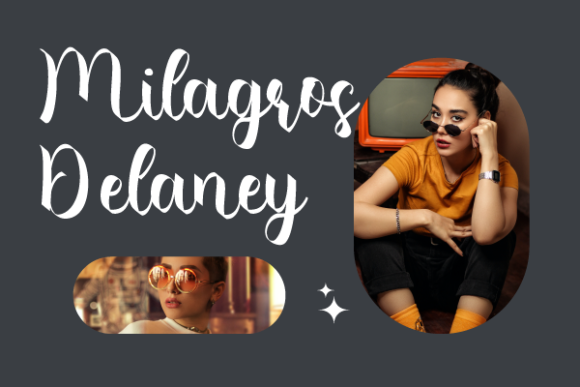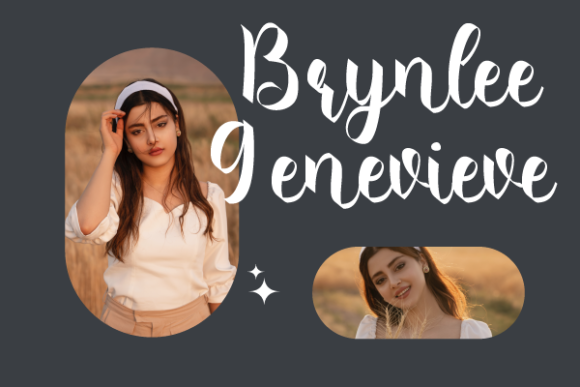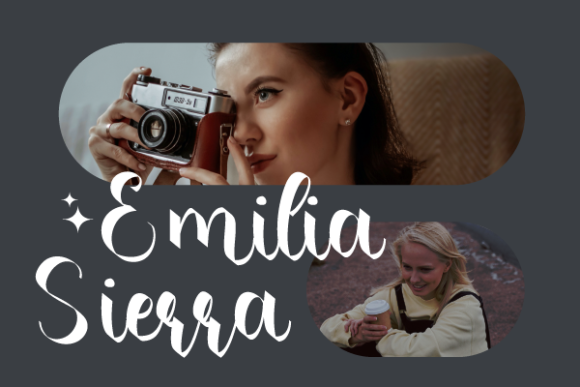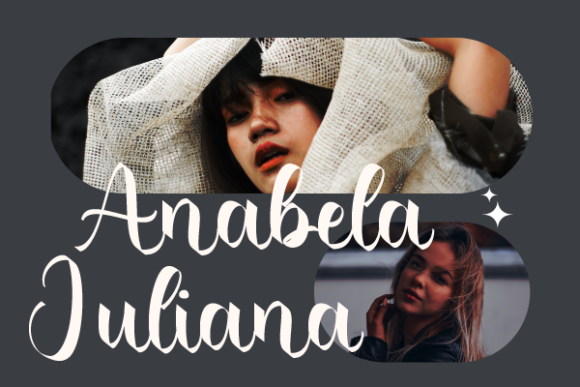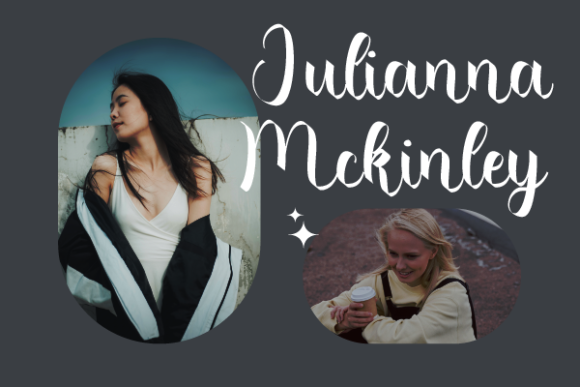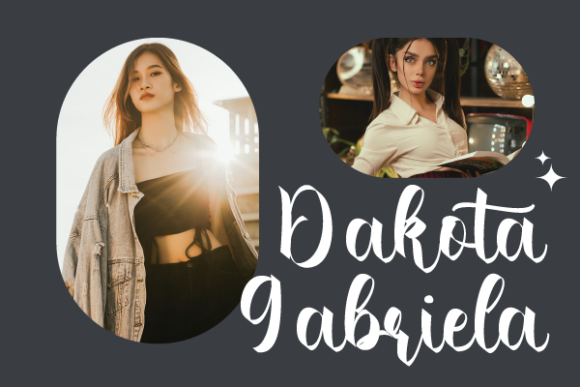
Aydin Demetrius Font: Elevate Your Creativity with Elegance
In the world of typography, few fonts manage to capture the essence of elegance and creativity as effectively as the Aydin Demetrius font. This magical script font, carefully crafted with a touch of sophistication, has become a go-to choice for designers and crafters looking to infuse their projects with a dash of artistry. Whether you’re curating a visually stunning Instagram feed or working on a DIY project that demands a personal touch, Aydin Demetrius is poised to transform your creative ideas into true masterpieces.
The Allure of Aydin Demetrius
Aydin Demetrius is more than just a font; it’s an experience. Its unique blend of classic script elements and modern flair makes it versatile and captivating. The font’s design is characterized by its fluid strokes, graceful ligatures, and a charming aesthetic that lends itself beautifully to a variety of applications. From the intricate details of calligraphy to the bold statements of digital content, Aydin Demetrius brings a level of sophistication that’s hard to match.
Applications of Aydin Demetrius
Instagram and Social Media
In the visually driven world of Instagram and social media, standing out is key. Aydin Demetrius offers a distinctive style that can elevate your posts, stories, and bio to new heights. Its elegant appearance makes it perfect for quotes, captions, and even creating custom graphics that demand attention and convey a sense of luxury.
DIY Projects and Crafting
For crafters and DIY enthusiasts, Aydin Demetrius opens up a world of creative possibilities. Whether you’re designing handmade cards, crafting custom signage, or working on a quilt with personalized lettering, this font provides the perfect blend of artistic flair and readability. Its calligraphy script style adds a personal touch to any project, making it truly one-of-a-kind.
Graphic Design and Branding
Graphic designers and branding experts will find Aydin Demetrius to be an invaluable asset in their toolkit. The font’s elegance and versatility make it suitable for a wide range of design projects, from logos and brochures to packaging and website headers. Its unique charm can help brands stand out and communicate their message with style and sophistication.
Why Choose Aydin Demetrius?
With so many fonts available, what sets Aydin Demetrius apart? Here are a few reasons why designers and crafters are gravitating towards this magical script font:
- Elegance and Versatility: Aydin Demetrius combines timeless elegance with modern versatility, making it suitable for a wide range of projects.
- Easy to Read: Despite its decorative nature, the font maintains a high level of readability, ensuring your message is conveyed clearly and effectively.
- Customizable: Aydin Demetrius can be easily customized to fit your project’s needs, whether you’re adjusting the size, color, or integrating it with other design elements.
- Unique Aesthetic: The font’s distinctive style ensures that your projects stand out in a crowded digital and physical landscape.
Getting Started with Aydin Demetrius
Incorporating Aydin Demetrius into your projects is straightforward. Here’s how to get started:
Choosing the Right Size and Color
Experiment with different sizes and colors to find the perfect combination for your project. Aydin Demetrius looks stunning in both bold and subtle applications, so don’t be afraid to get creative.
Pairing with Other Fonts
For added visual interest, consider pairing Aydin Demetrius with complementary fonts. A classic combination is pairing it with a clean sans-serif font for contrast and readability.
Aydin Demetrius is more than just a font; it’s a tool for creativity, a means to transform your ideas into art. Its magical script style, combined with elegance and versatility, makes it an essential choice for designers and crafters alike. Whether you’re enhancing your social media presence, working on DIY projects, or pushing the boundaries of graphic design, Aydin Demetrius is your partner in bringing creativity to life. Embrace the elegance, and let Aydin Demetrius guide your creative journey towards new heights of artistic expression.